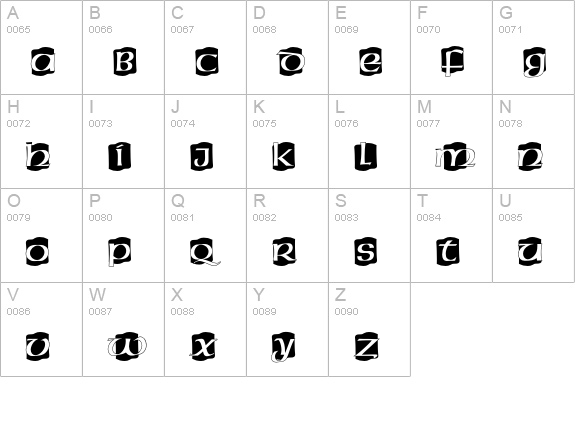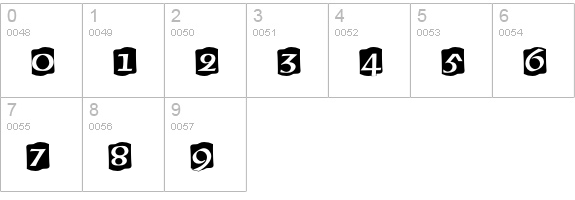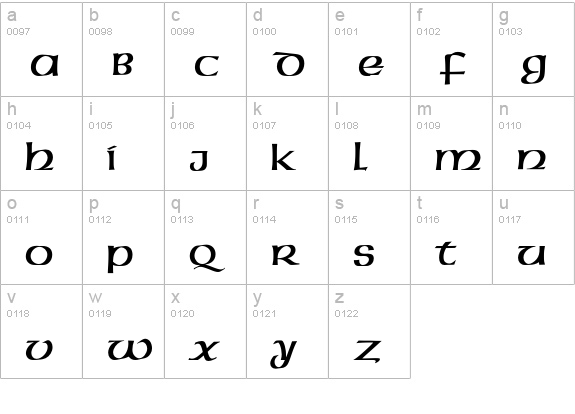
American Uncial Initials D Font Details
American Uncial Initials D is a stunning and elegant font that brings a touch of vintage charm to any design project. With its ornate details and classic appeal, this font is perfect for creating eye-catching headers, logos, and invitations. The intricate letterforms of American Uncial Initials D exude a sense of sophistication and timelessness, making it an ideal choice for projects that require a touch of old-world charm. Best of all, American Uncial Initials D is available for free download at FontsMarket.com. Whether you're a designer looking to add a unique flair to your work or a hobbyist wanting to explore new fonts, American Uncial Initials D is a versatile and timeless choice that is sure to impress. Download this font today and elevate your designs with its timeless elegance and classic appeal.